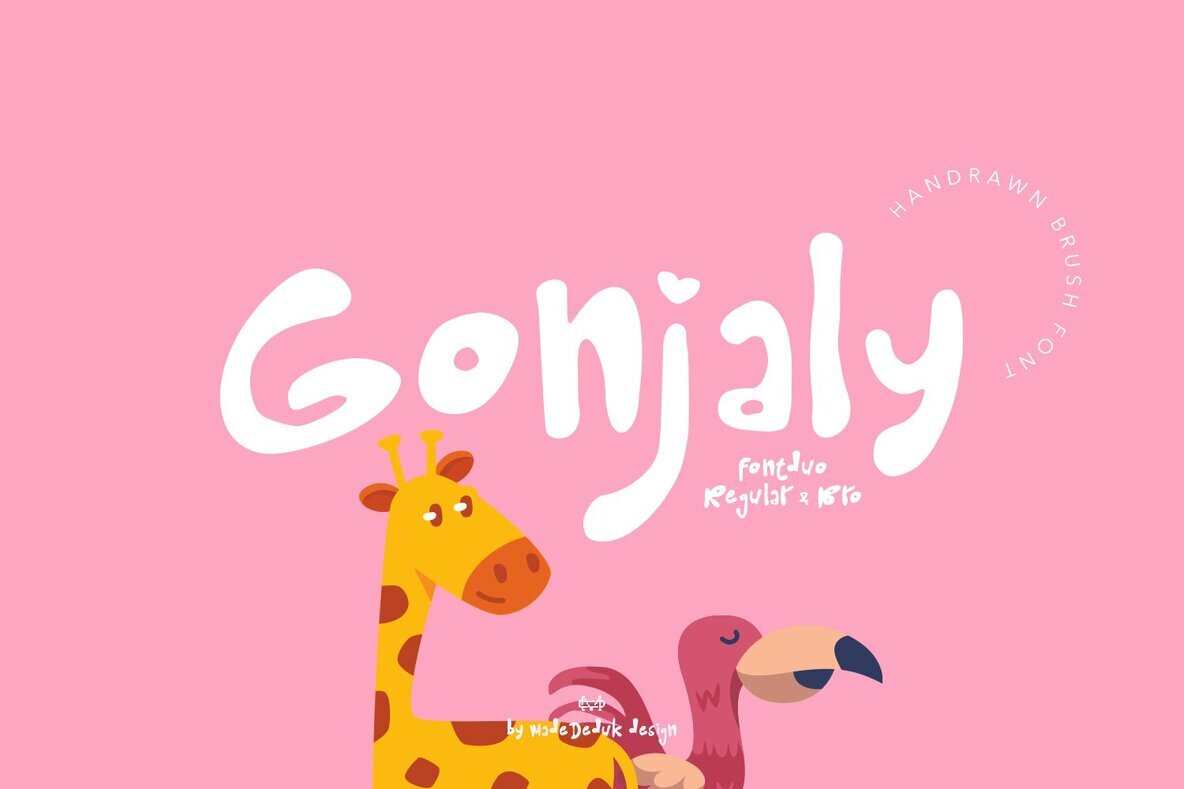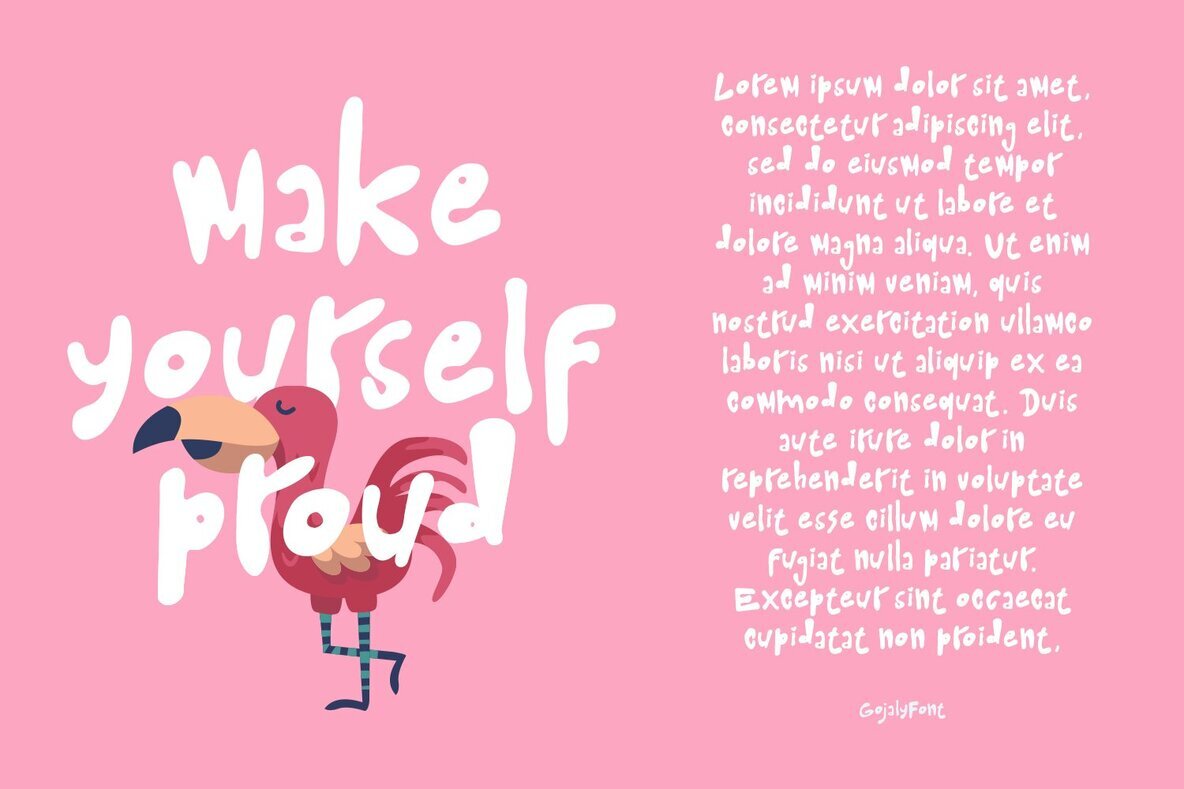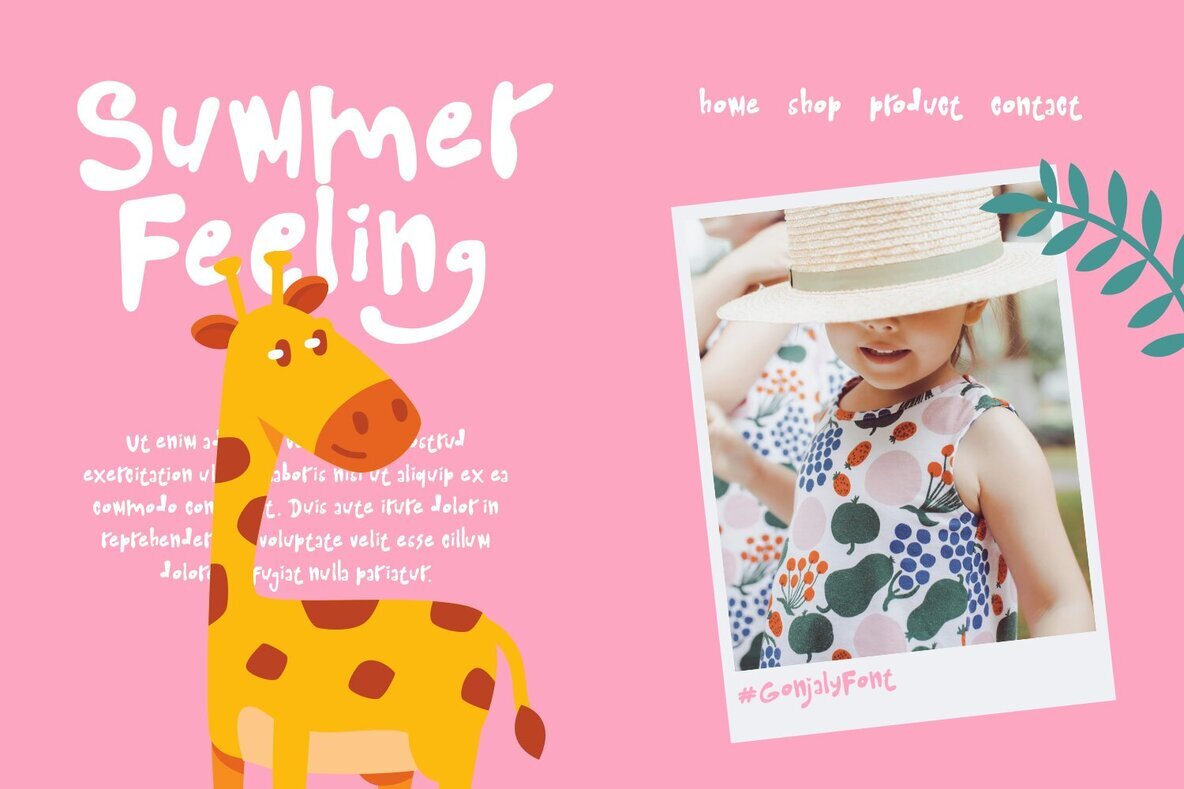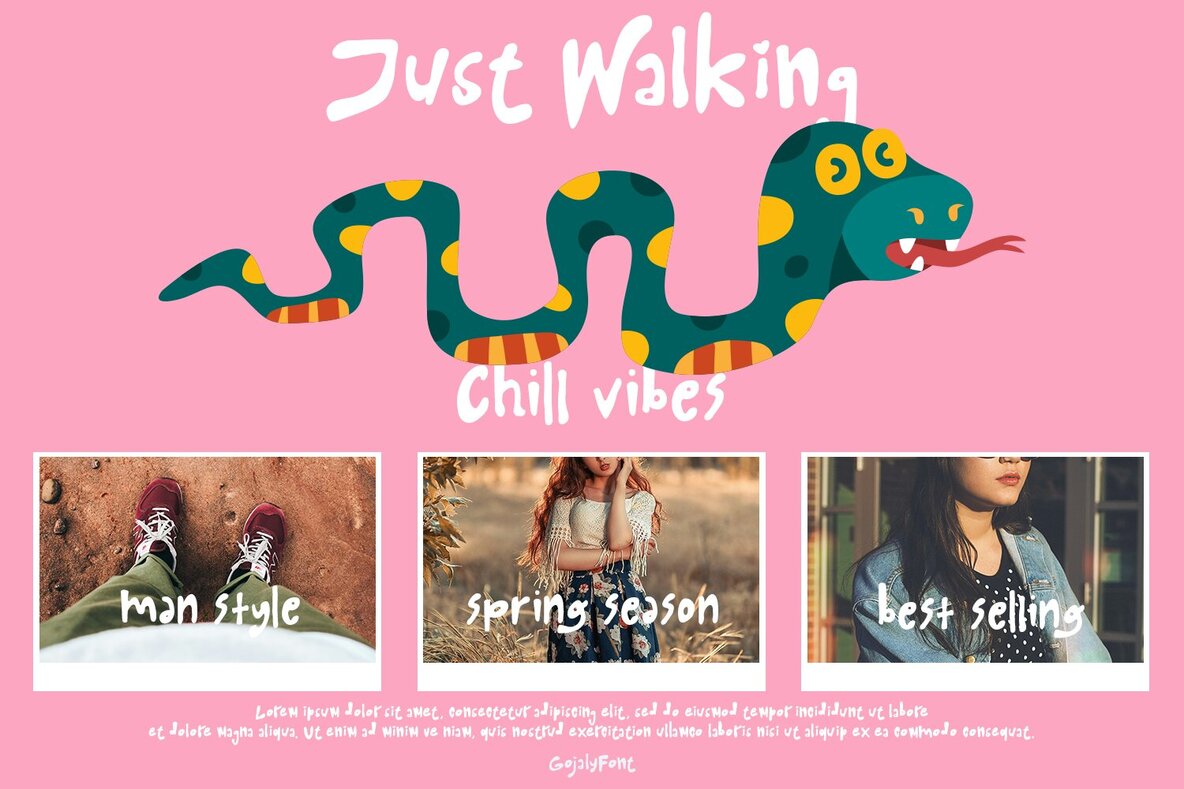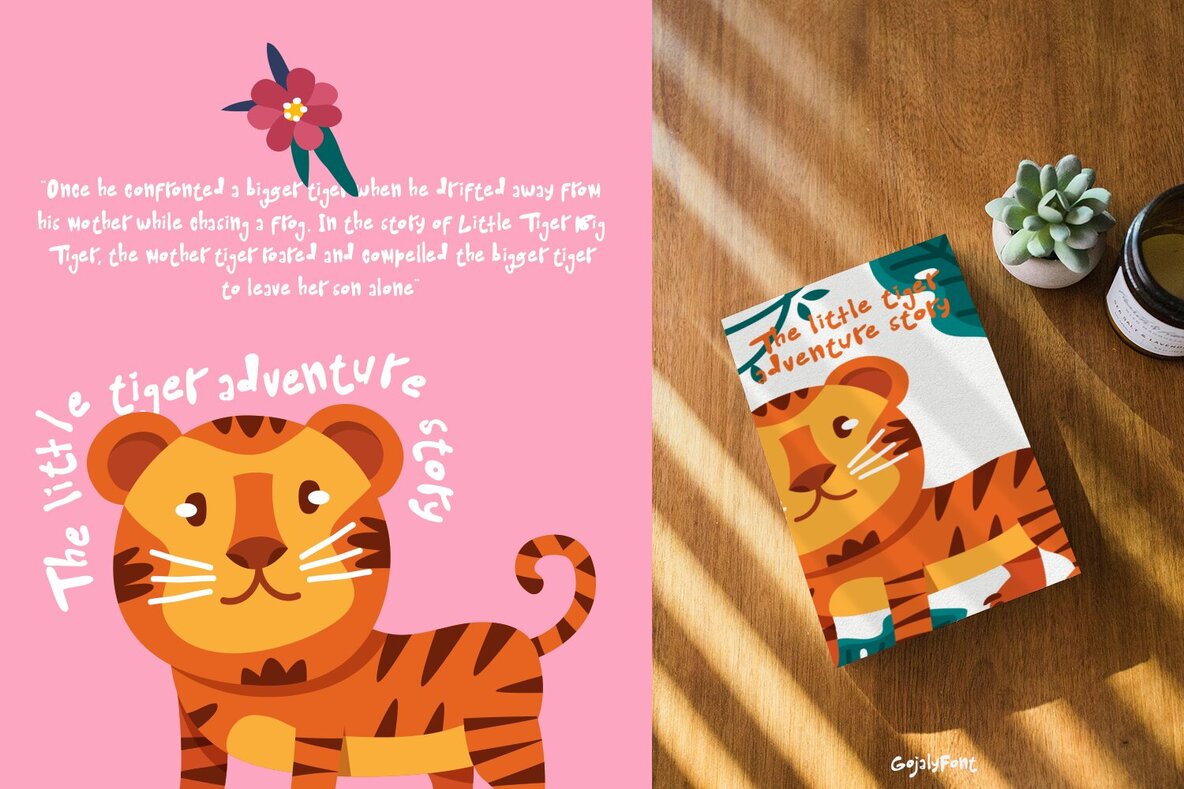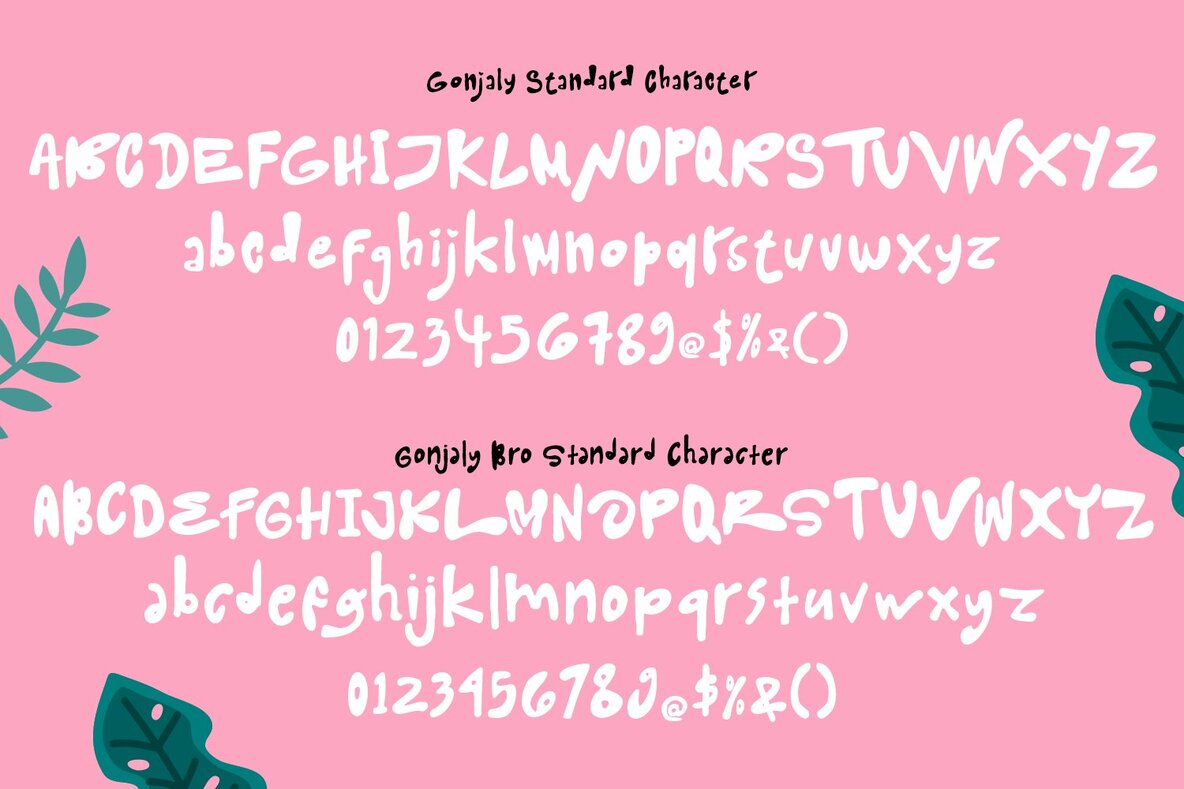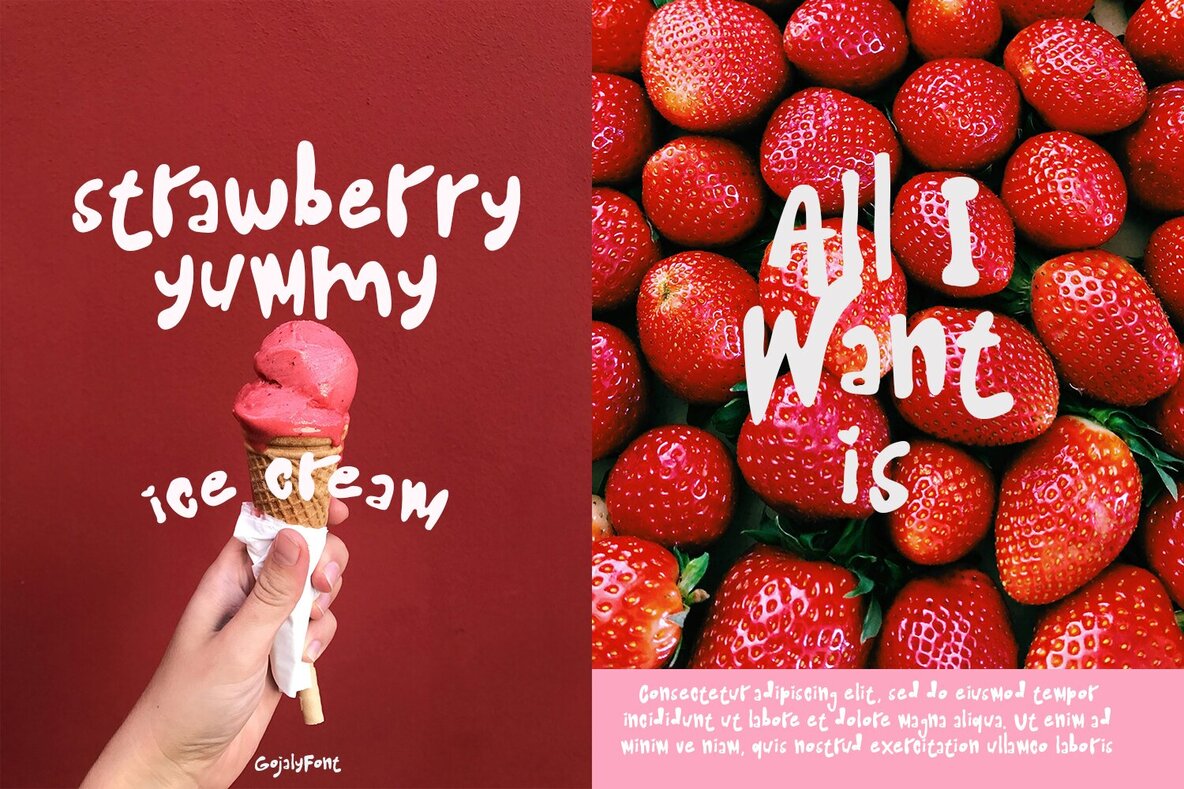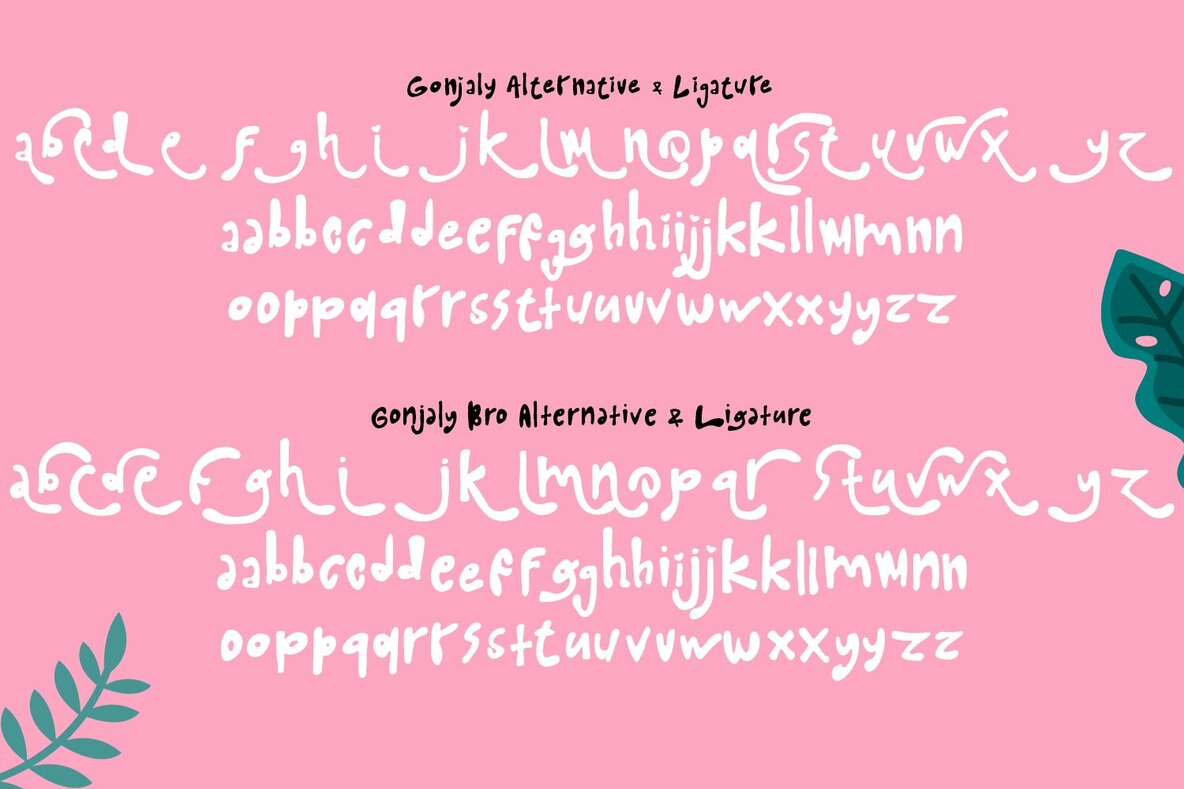
Gonjaly Font
Gonjaly is a charming hand-drawn font featuring two unique styles: Regular and Bro. This versatile typeface is designed for ease of use, fully accessible through OpenType-capable software such as Photoshop, Illustrator, and InDesign. Mac users can also easily utilize it with Font Book and TextEdit.
Gonjaly is an ideal choice for a range of creative projects. Its playful yet sophisticated design makes it perfect for book titles, branding, product packaging, invitations, quotes, labels, posters, and logos. Whether you’re designing a whimsical cover or crafting a distinctive brand identity, Gonjaly adds a delightful touch to any project.